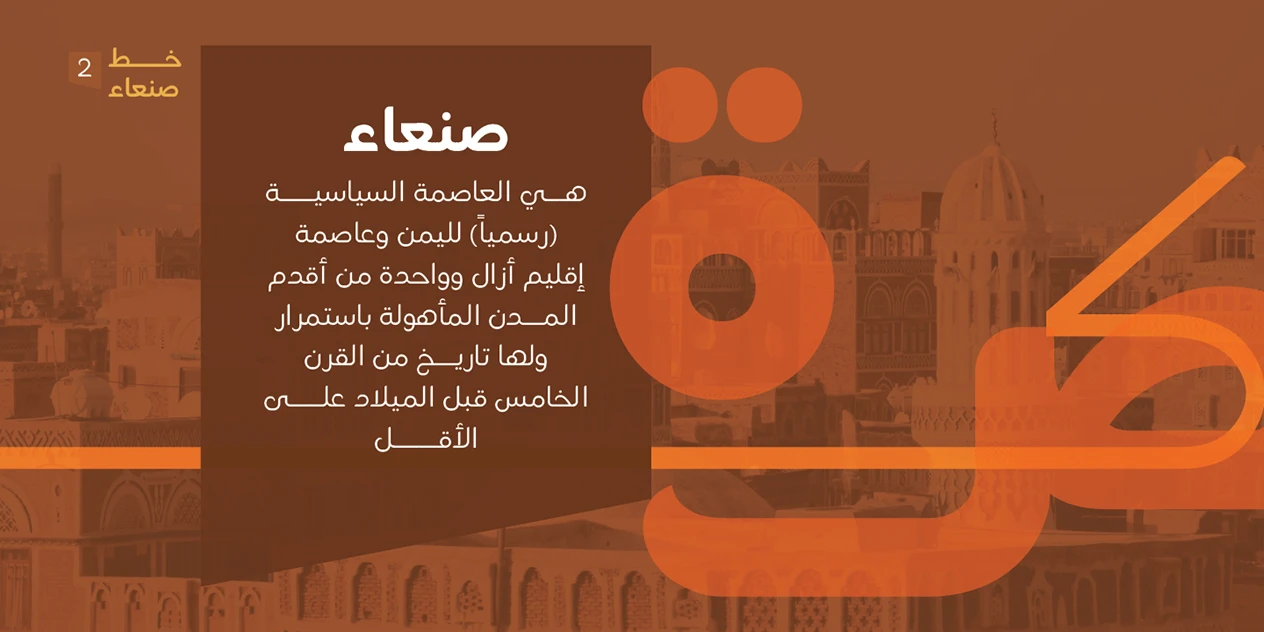
Sanaa Pro V2 Font Family
Sana’a is a thoughtfully crafted typeface that brings together Persian and Arabic scripts in a design inspired by the rich calligraphic heritage of the historic city of Sana’a. With its elegant proportions and culturally authentic character, this font allows you to create sophisticated projects that flow seamlessly between both languages while honoring centuries of artistic tradition.
Design Characteristics:
• Elegant, refined Persian and Arabic letterforms
• Authentic calligraphic influence with contemporary polish
• Balanced proportions for excellent readability
• Sophisticated design with cultural depth
• Distinctive yet approachable aesthetic
Persian (Farsi) Script:
• Complete Persian character set
• Full support for Persian-specific characters (گ، چ، پ، Ú˜)
• Correct representation of Persian numerals
• Proper character connections and positioning
• Elegant styling across all letters
Arabic Script:
• Coordinated Arabic design matching Persian style
• Complete Arabic character set
• Full support for Arabic diacritics and marks
• Harmonious weight and proportion
• Elegant Branding: Sophisticated brand identities with cultural resonance
• Editorial Design: Magazines, books, publications
• Packaging: Refined product presentation
• Logos: Graceful wordmarks with authenticity
• Cultural Projects: Designs celebrating Arab and Persian heritage
• Invitations: Elegant event announcements
• Web Design: Clean, elegant digital typography
• Print Materials: Brochures, flyers, reports
• Islamic Content: Religious and cultural materials
• Cultural Authenticity: Inspired by historic calligraphic traditions
• Elegant Design: Refined, graceful letterforms
• Coordinated Scripts: Harmonious Persian and Arabic
• Professional Quality: High-caliber font for commercial use
• Time-Saving: One font for both languages—no mixing required
• Versatile Application: Perfect for sophisticated regional work
Key Features of Sana’a Font:
• Elegant Persian and Arabic designs
• Complete character sets for both scripts
• Authentic, refined aesthetic
• Perfect for sophisticated regional design projects
• Graphic designers seeking authentic Persian/Arabic typography
• Cultural and heritage project creators
• Elegant brand developers
• Editorial and publication designers
• Anyone needing refined, culturally resonant bilingual fonts